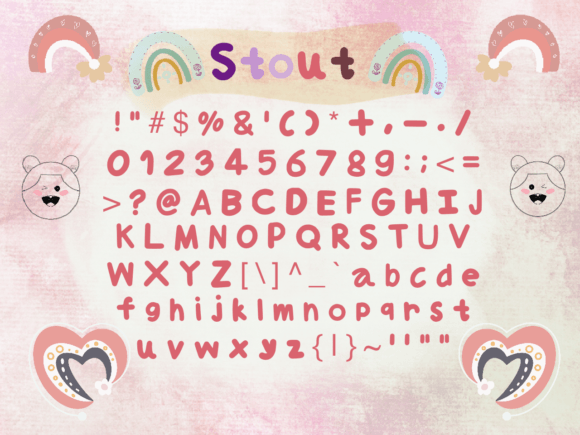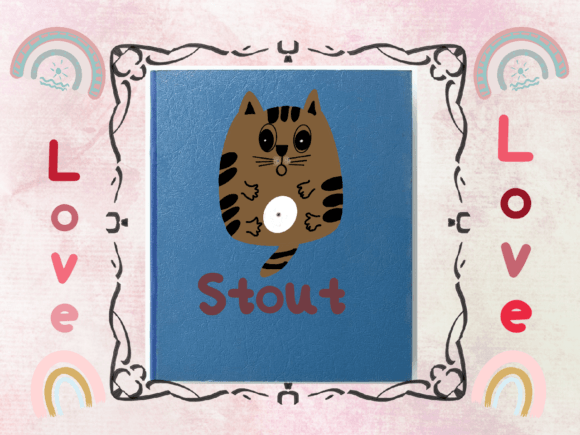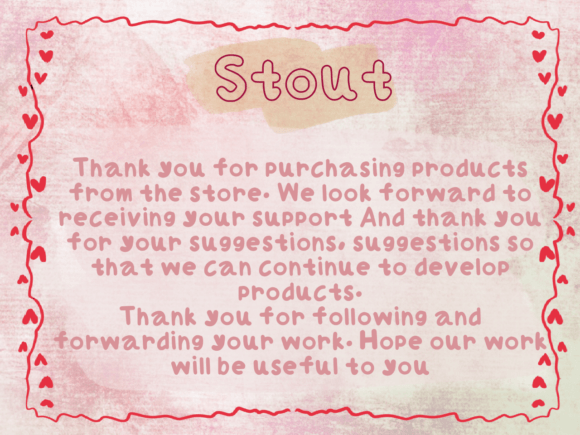
Stout Font
About Stout Font
Introducing “Stout,” a fun and whimsical handwritten font that adds a playful touch to your creative projects. Designed with a lively and casual style, Stout is a perfect choice for cartoon-related designs, children’s games, or any creation that needs a lovely and charming vibe.
The fun and whimsical qualities of Stout make it an excellent choice for projects aimed at children or anything that requires a touch of playfulness. In the realm of cartoon-related designs, this font becomes a defining element that adds a cheerful and animated feel to the visuals. Its handwritten style contributes to the overall friendly and approachable atmosphere.
For children’s games, Stout brings a sense of joy and creativity to the design. The font’s whimsical nature makes it visually engaging and well-suited for capturing the attention and imagination of a younger audience.
The versatility of Stout extends to various creative endeavors where a lovely touch is needed. Whether you’re working on posters, invitations, or any design that requires a playful and hand-drawn feel, this font is sure to add a delightful and charming element.
Stout’s handwritten and whimsical vibe makes it a valuable tool for infusing a sense of fun into your designs. Its casual and lively style ensures that your text becomes a focal point, making your creative projects more visually interesting and engaging.
In summary, Stout is more than just a font; it’s a creative tool designed to bring a fun and whimsical handwritten style to your projects. Whether you’re working on cartoon designs, children’s games, or any creation that requires a lovely touch, let Stout be the font that injects joy and playfulness into your creative endeavors.